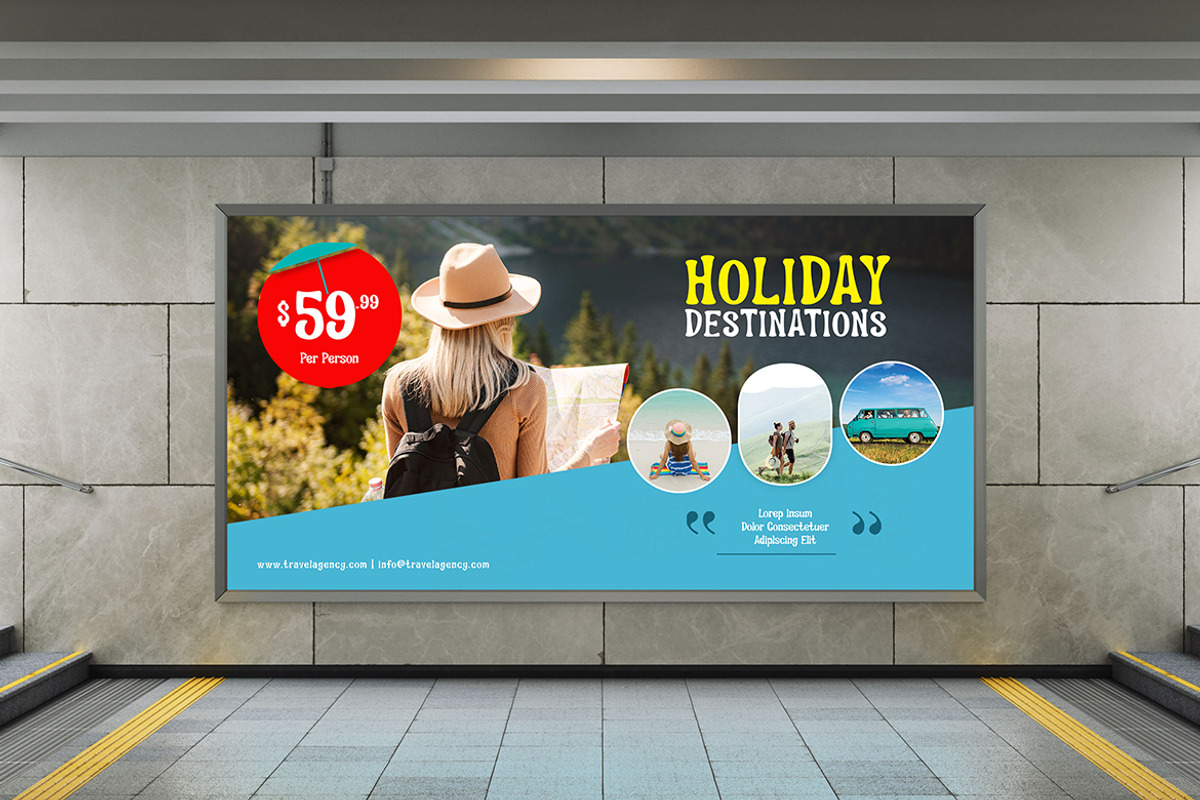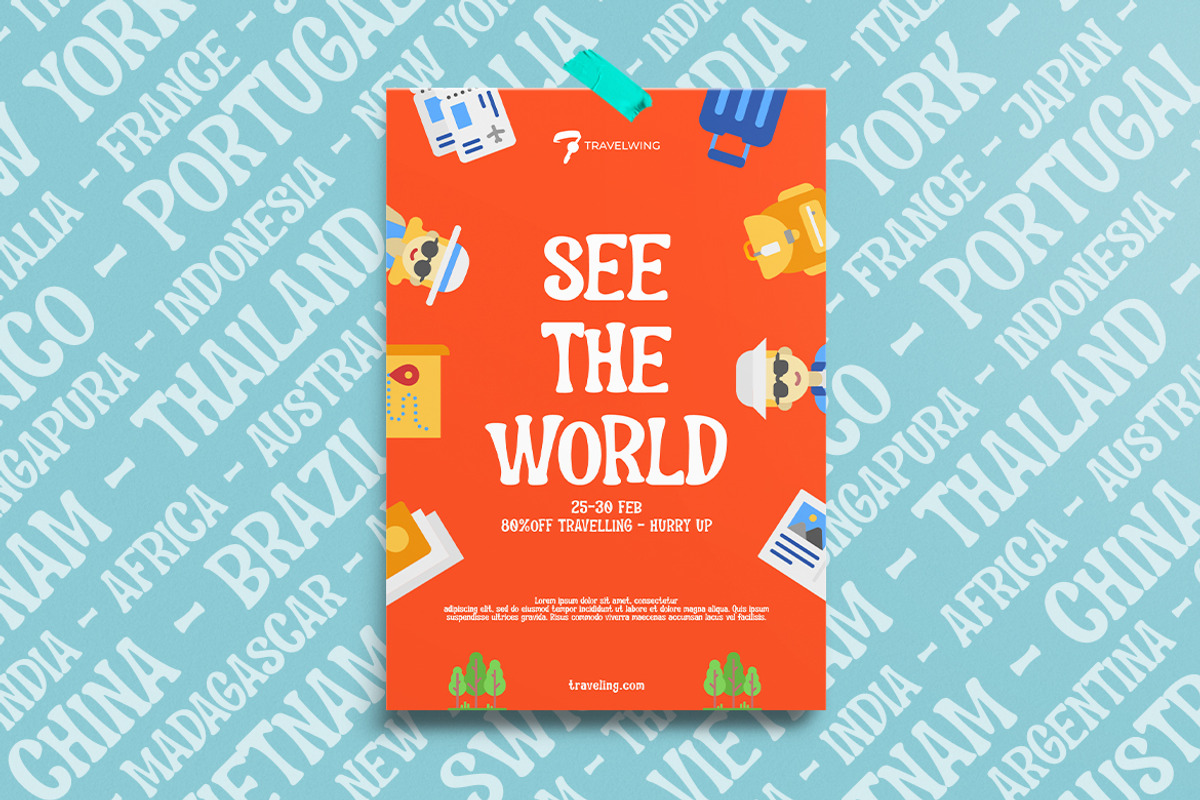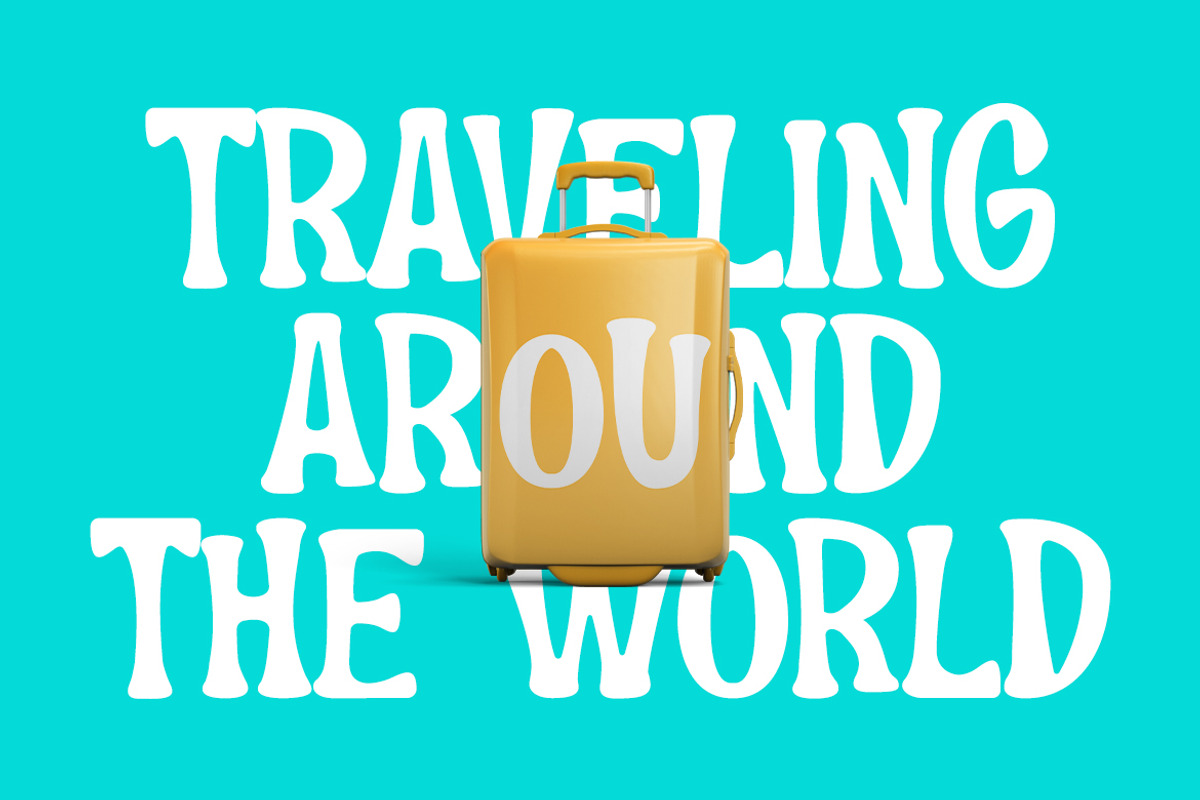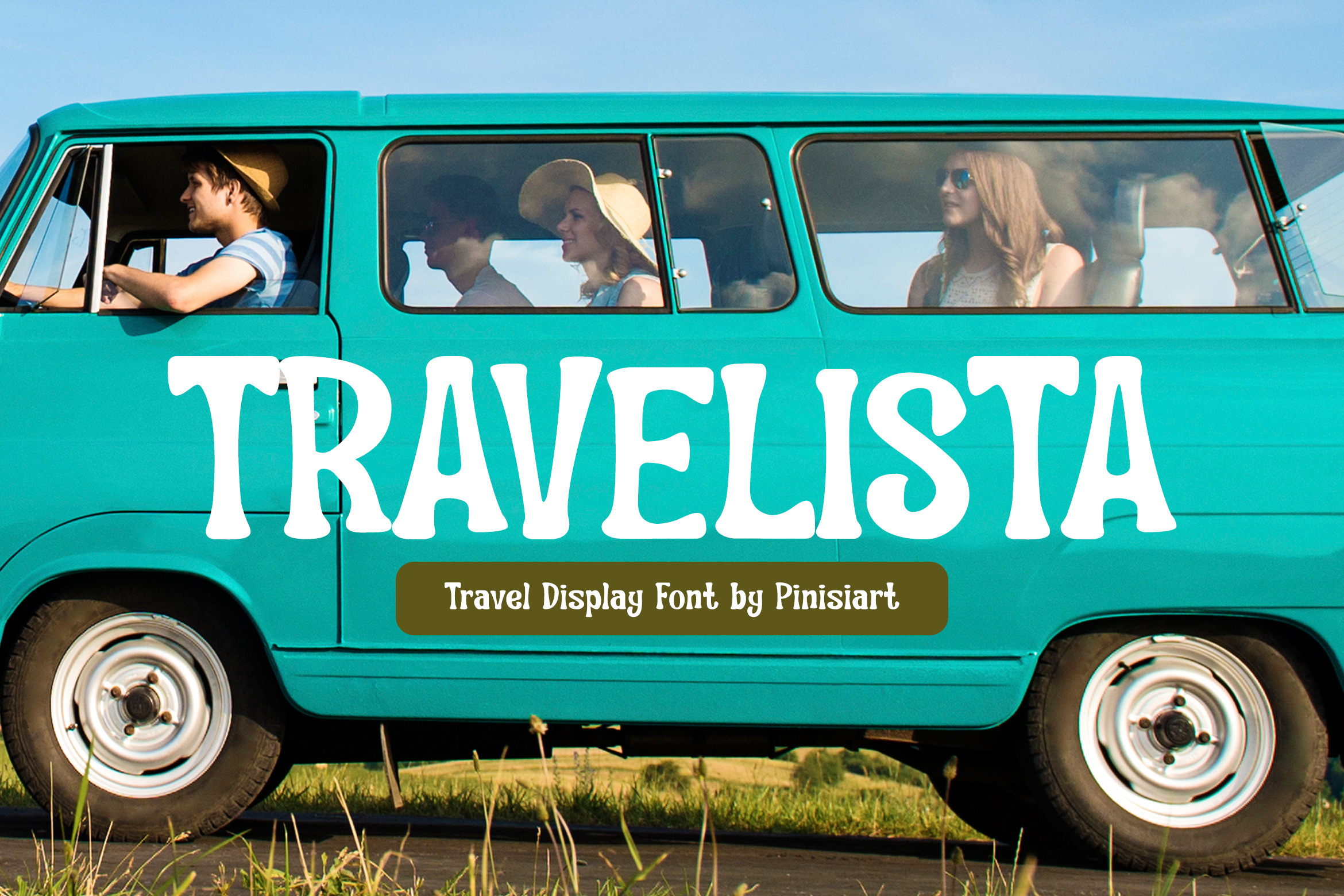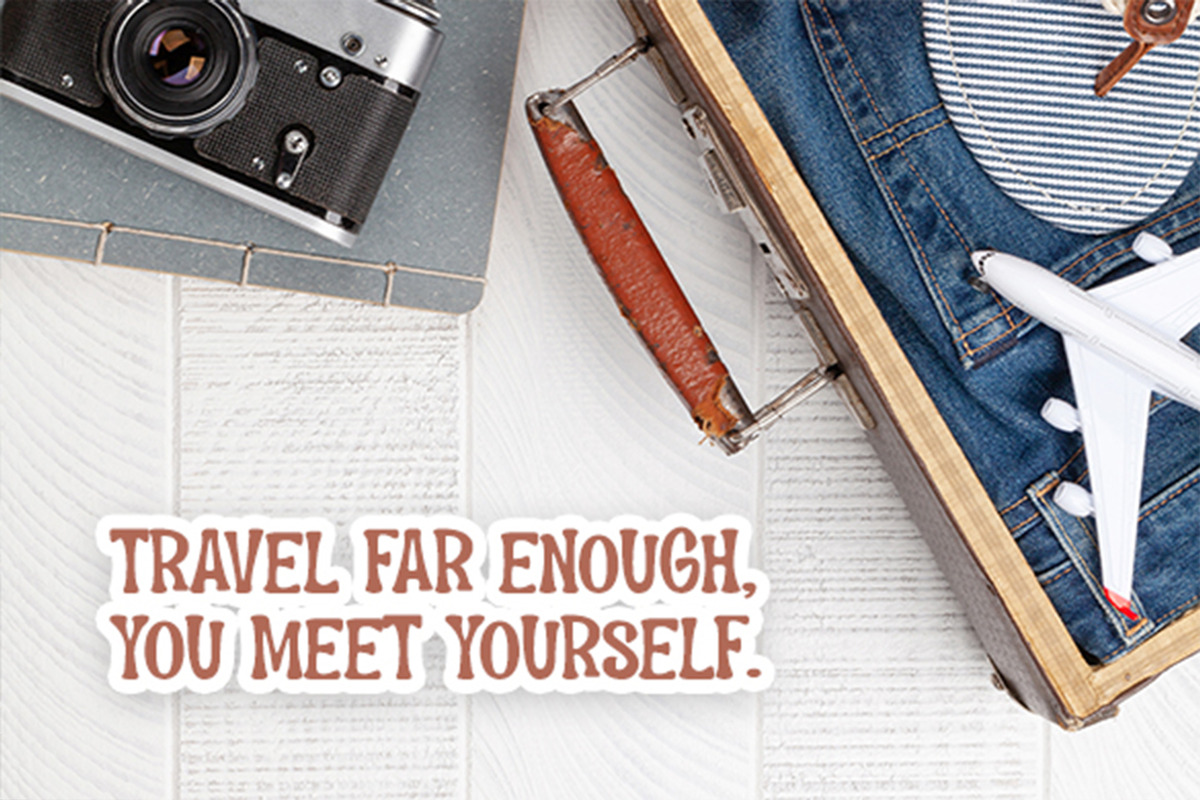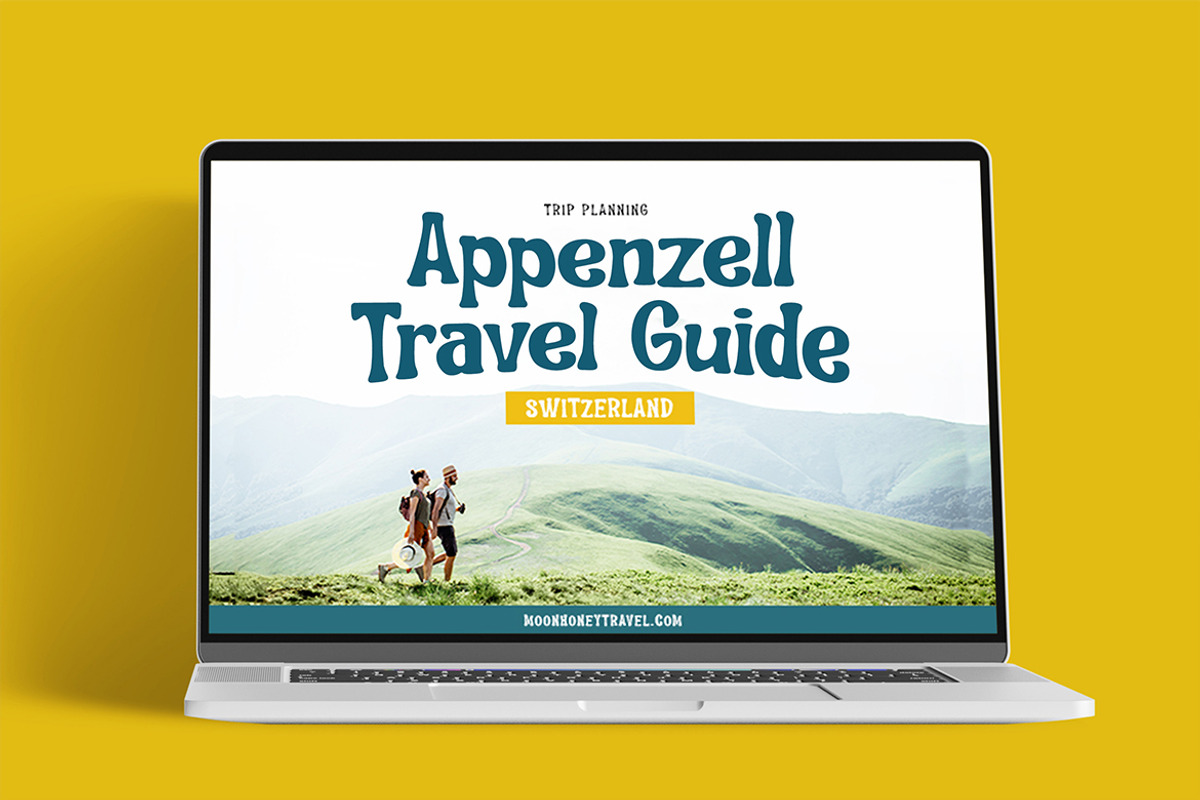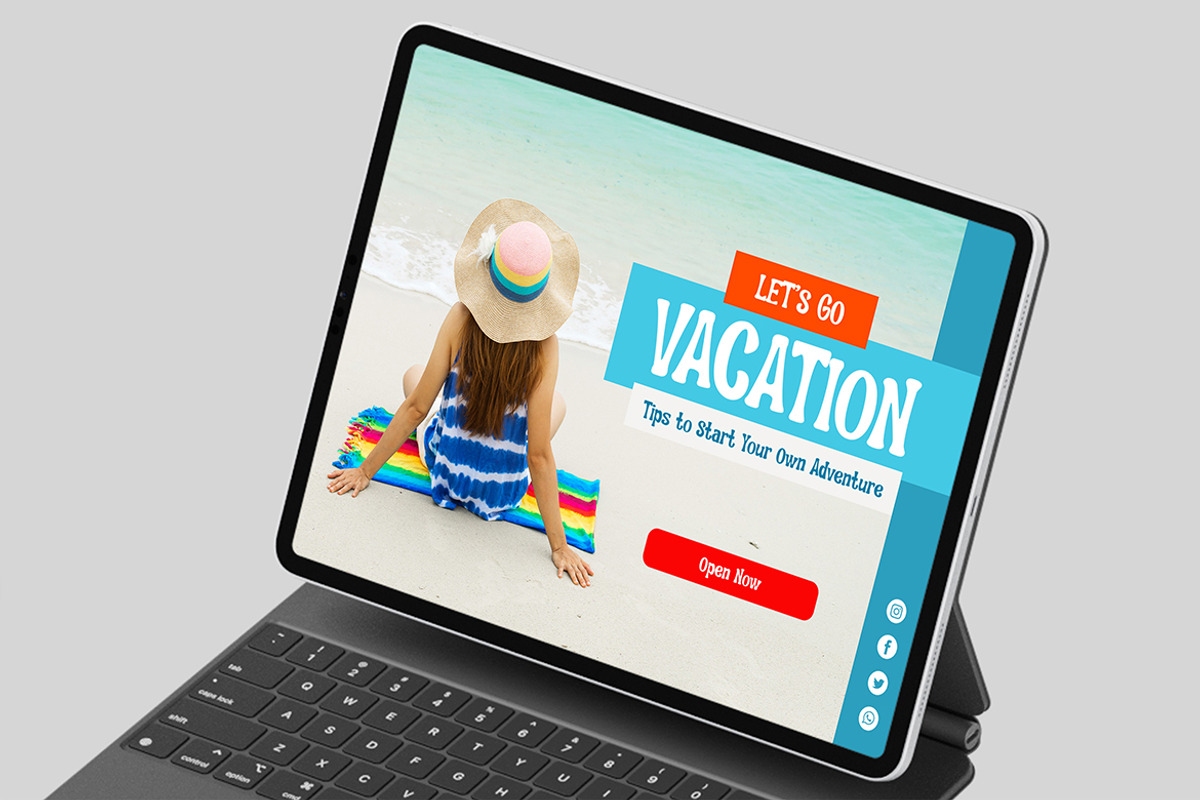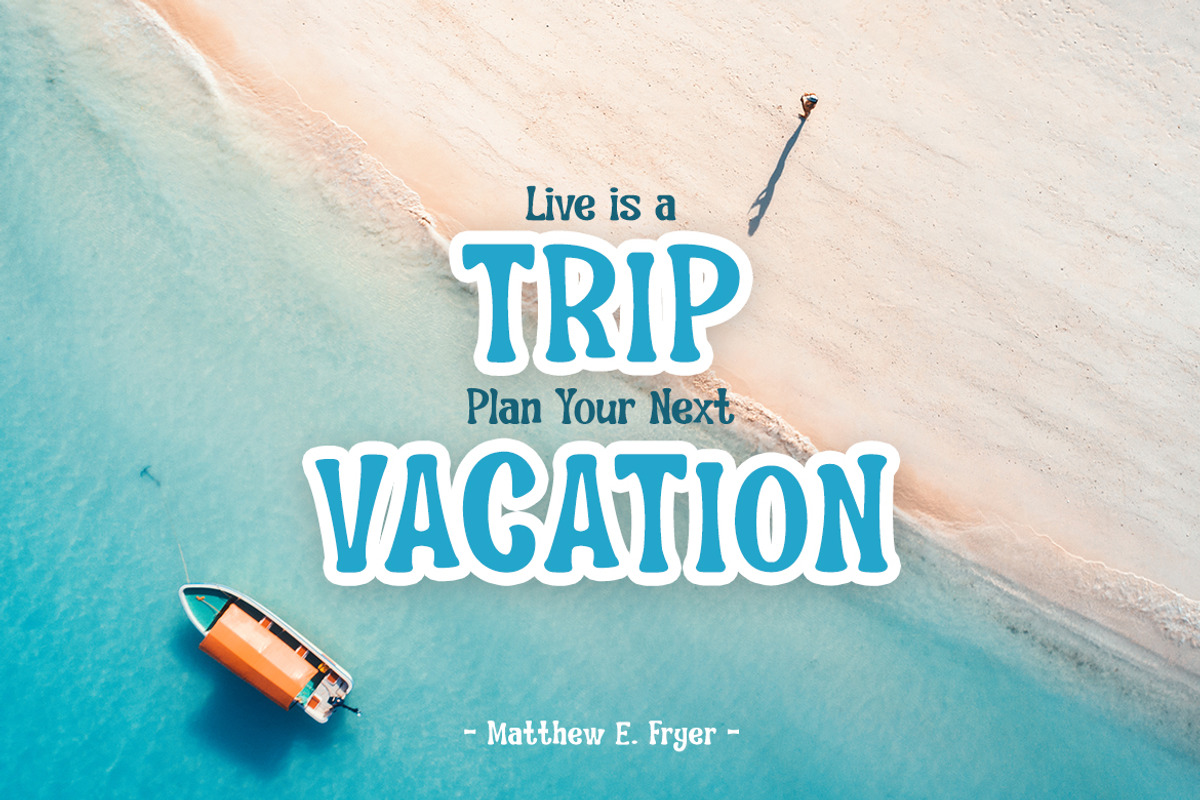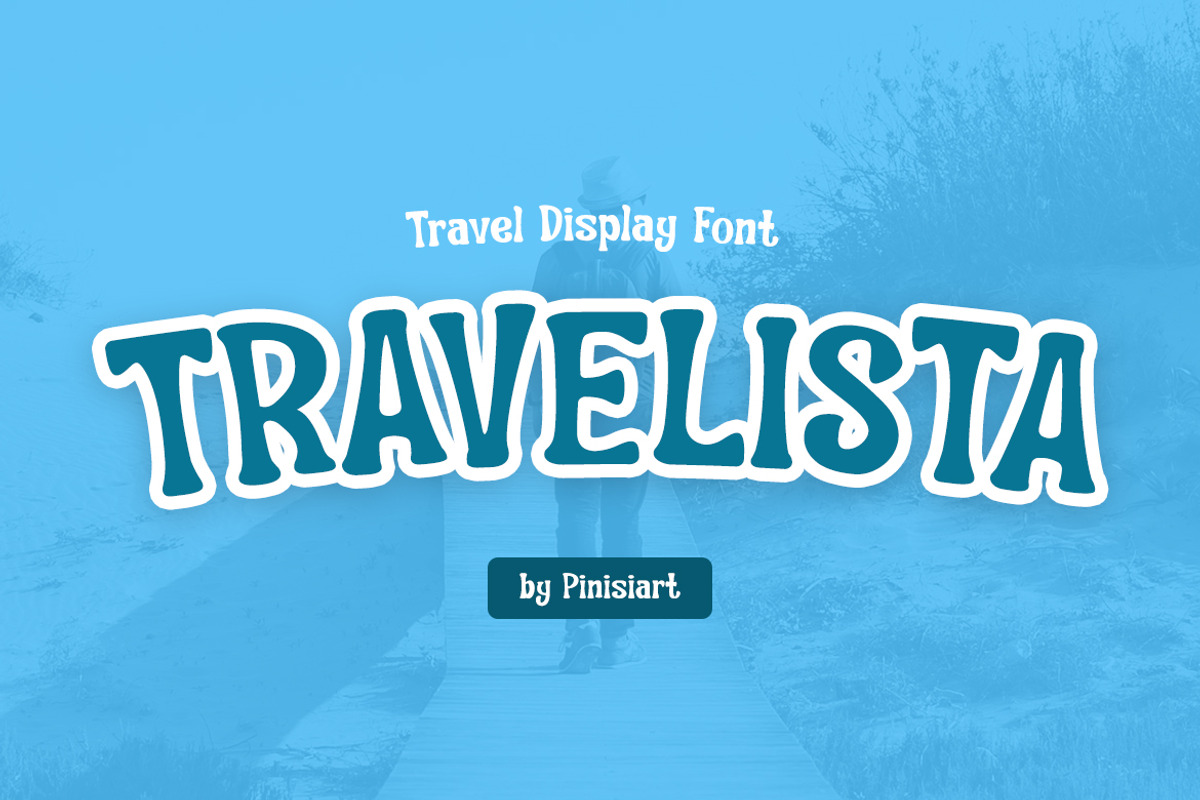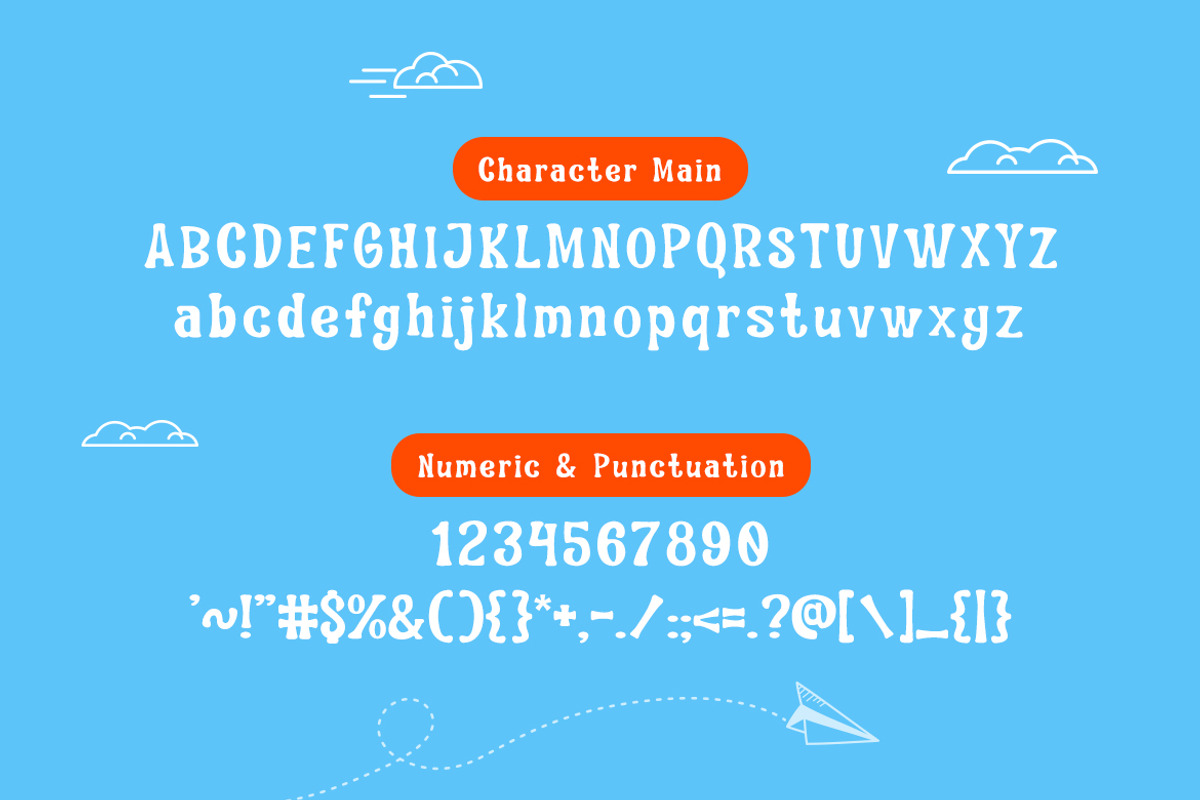
Travelista – Vacation Display Font
When you think of a getaway from these hectic working days, then Travelista will make that dream come true.
Suit perfect for traveling books market, vacation event posters, movie titles, youtube covers, youtube thumbnails, social media page covers, and so on…